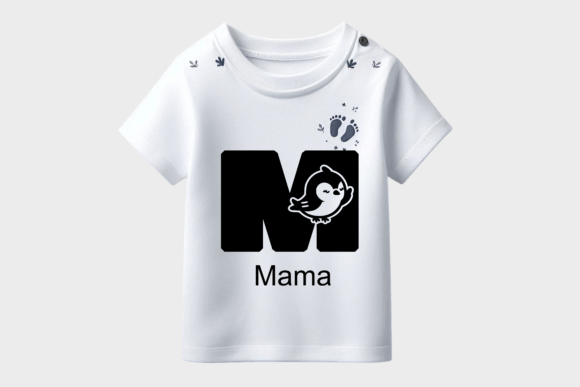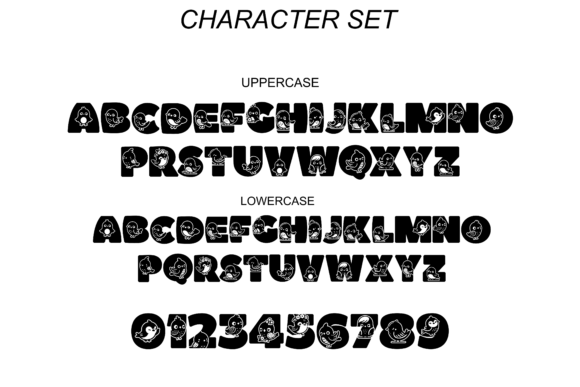
Birdy Font: Elevate Your Artistic Endeavors with Precision and Flair
Immerse yourself in the fascinating realm of artistic excellence with Birdy, a meticulously tuned typeface that represents the apex of groundbreaking design. This typographic wonder assures to lend an irresistible allure to your creative works and beckons you to delve into the vibrant self-expression provided by Birdy.
The Art of Typography: A Perfect Blend of Precision and Unpredictability
Birdy is an intriguing blend of careful precision and evocative unpredictability. Its design is intentionally built to elevate the allure of your artistic endeavors, drawing you into its distinctive character and imparting to your creations a peerless visual impact that is synonymous with Birdy. Whether you’re a designer, crafter, or artist, this font is sure to inspire you to push the boundaries of your creativity.
Unleash Your Creativity with Birdy’s Unique Character
Birdy’s unique character is what sets it apart from other typefaces. Its carefully crafted design ensures that every letter, word, and sentence is a masterpiece of typographic art. With Birdy, you can add a touch of sophistication and elegance to your designs, making them truly unforgettable. Whether you’re working on a logo, brochure, or website, Birdy is the perfect choice for anyone looking to make a lasting impression.
Key Features of Birdy Font
- Meticulous Design: Birdy’s design is meticulously crafted to ensure that every detail is perfect, from the curves of each letter to the spacing between words.
- Precision and Unpredictability: Birdy’s unique blend of precision and unpredictability makes it a standout typeface that will add a touch of excitement to your designs.
- Distinctive Character: Birdy’s distinctive character is what sets it apart from other typefaces, making it the perfect choice for anyone looking to add a touch of personality to their designs.
- Peerless Visual Impact: Birdy’s design ensures that your creations will have a peerless visual impact, making them truly unforgettable.
Why Choose Birdy Font?
There are many reasons why Birdy font is the perfect choice for designers and crafters. Here are just a few:
- Elevate Your Designs: Birdy is designed to elevate the allure of your artistic endeavors, making it the perfect choice for anyone looking to take their designs to the next level.
- Add a Touch of Sophistication: Birdy’s sophisticated design ensures that your creations will exude elegance and refinement, making them perfect for high-end designs.
- Stand Out from the Crowd: Birdy’s unique character ensures that your designs will stand out from the crowd, making them truly unforgettable.
How to Use Birdy Font in Your Designs
Using Birdy font in your designs is easy. Here are a few tips to get you started:
- Pair it with Other Fonts: Birdy pairs well with other fonts, making it easy to create stunning typographic combinations.
- Experiment with Different Sizes: Birdy’s design ensures that it looks great in any size, from large headings to small body text.
- Use it for Headings and Titles: Birdy is perfect for headings and titles, adding a touch of sophistication and elegance to your designs.
In conclusion, Birdy font is a game-changer for designers and crafters. Its unique blend of precision and unpredictability makes it a standout typeface that will add a touch of excitement to your designs. With its meticulous design, distinctive character, and peerless visual impact, Birdy is the perfect choice for anyone looking to elevate their artistic endeavors. So why wait? Immerse yourself in the fascinating realm of artistic excellence with Birdy and discover a world of creative possibilities.